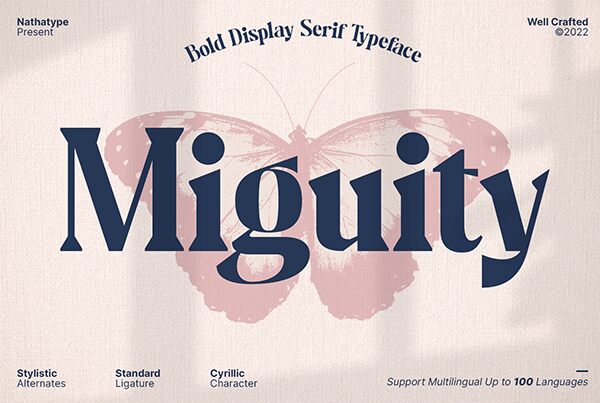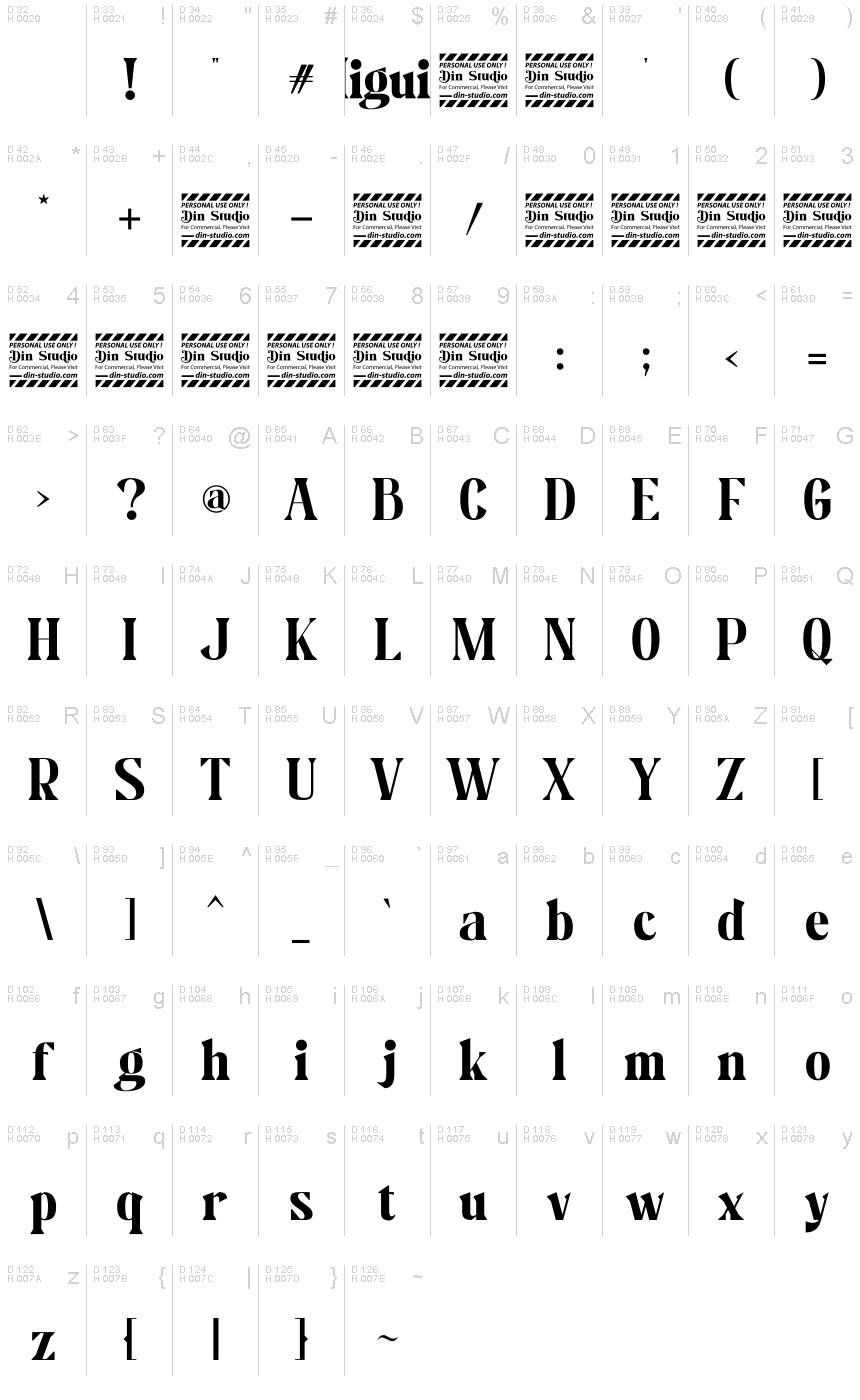
Miguity Personal Use
Miguity, crafted by Nathatype, stands out with its elegant serif style that exudes a blend of classic charm and modern flair. The font's generous proportions and distinctive curves convey a sense of warmth and friendliness, making it inviting to the reader's eye. Its bold strokes create a strong presence on the page, while the subtle serifs nod to traditional typography. This delightful interplay of contemporary design with an undercurrent of time-honored typeface traits gives Miguity a versatile personality.
Ideal for branding that desires both impact and refinement, Miguity shines in headings, editorial layouts, and sophisticated logo designs. Its approachable yet assertive appearance ensures that messages crafted in this font are delivered with both confidence and grace.
Miguity Serif Font